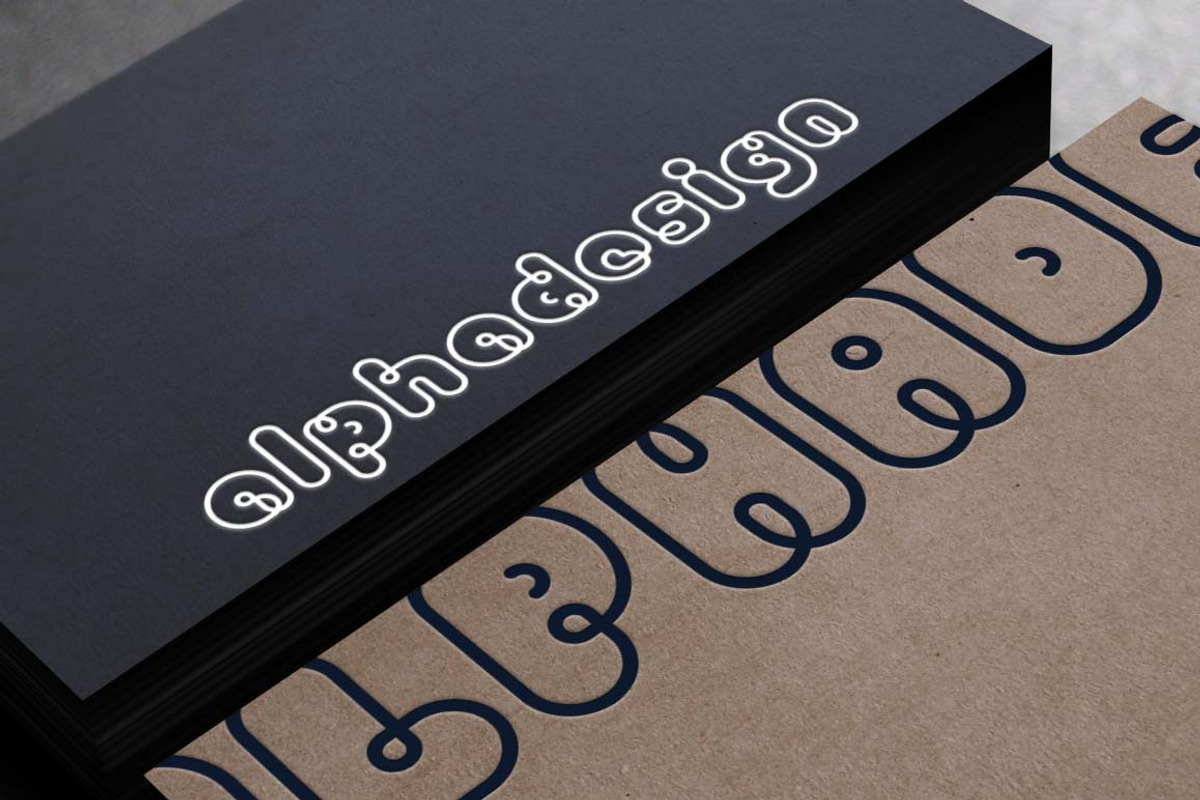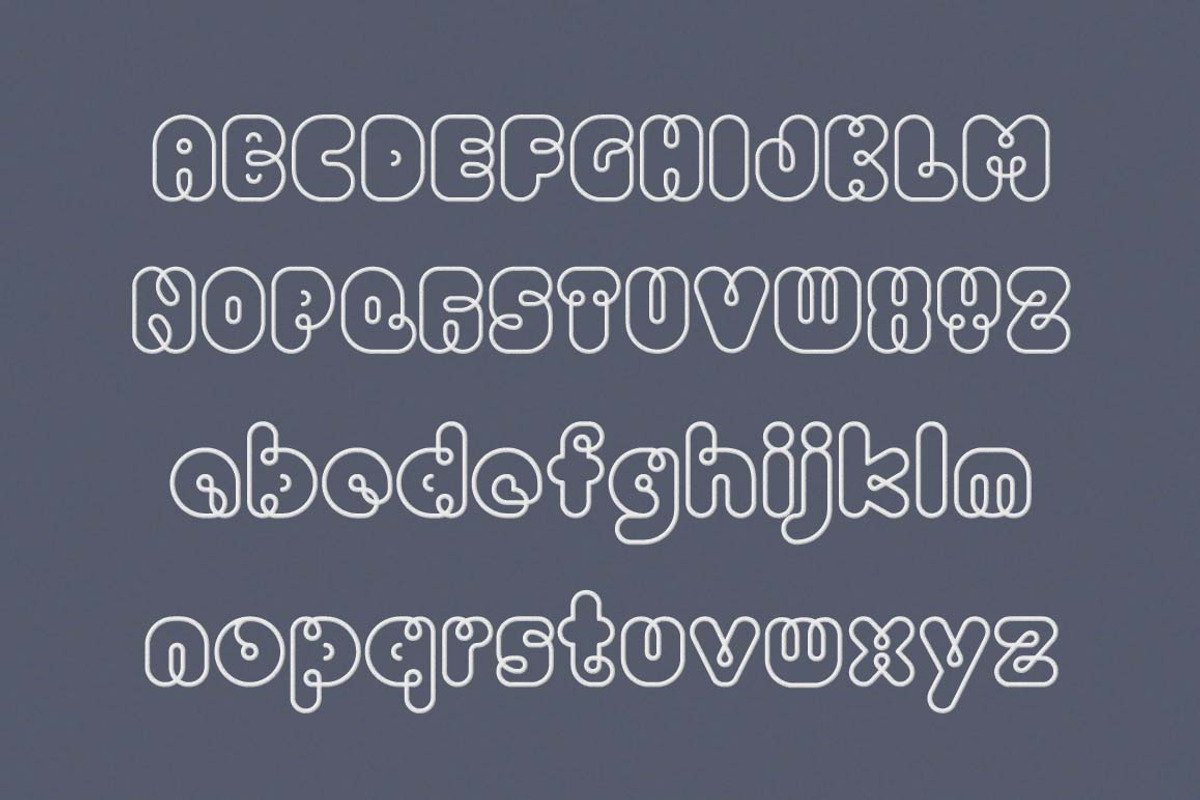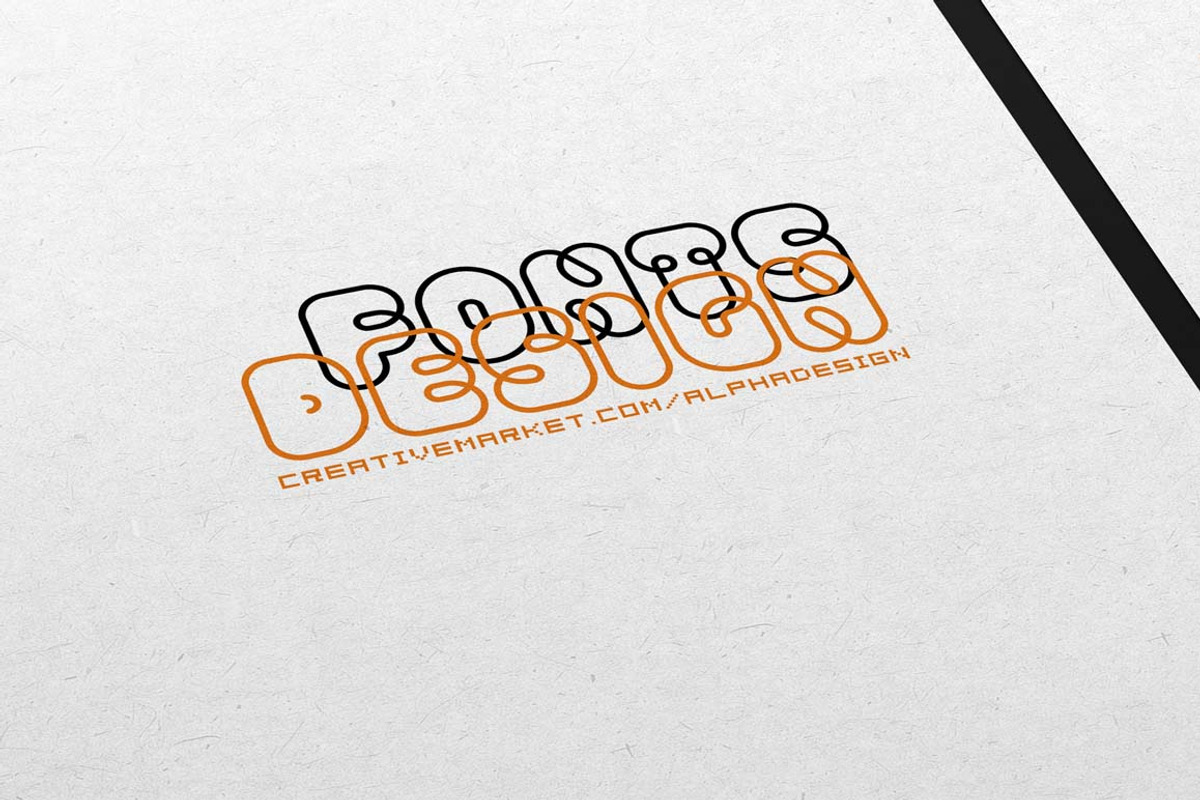
PIO Rounded TrueType Font
PIO Rounded TrueType Font by alphadesign is a font selected for branding, posters, packaging, typography.
Why PIO Rounded TrueType Font is worth a look
PIO Rounded TrueType Font by alphadesign fits naturally into Branding, posters, packaging, typography.